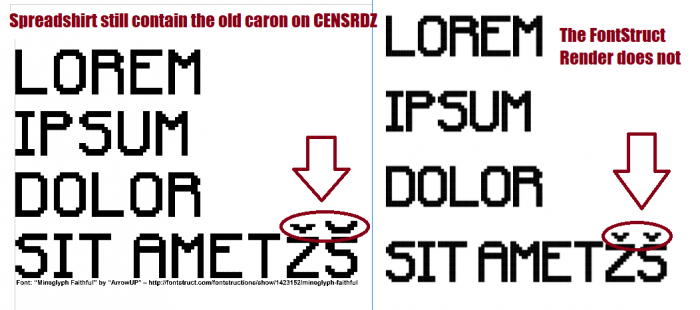
Alas, I cannot help you there, Minecraft or not. It looks quite complete to me, and quite 'pixelly' :-)
greek, other latin-A, œ, etc.
also, caron on C E N S R D look like breve.
@xXx XBox Gamer, Done. Working on Greek now.
Spacong problem on í or î
Iota has no dot on it...
@xXx XBox Gamer I have no idea why that happens. :/
Also, sorry for the dot! I pasted it there, but forgot to edit it. I thought I already did that because it was checked :v
Abreve has no breve
Î î still problems in spacing...
This might be a very useful font, well done.
I assume xbox gamer meant to give you some support like "is there a spacing problem with Îî ?" and "I think that the Iota have no dots"
@xXx XBox Gamer  As you can see it does not happen when you use this font on the computer.
Î and Ï connect to each other... if you could move the slider do that they dont touch... htat would be great
Or at least move Î 2 bricks to the left...
IPA added!
Now you can spell whatever you want with Mineglyph Faithful!
Some IPA is in Latin B...
@xXx XBox Gamer Yeah, I'm planning to add Latin-B soon
This is pretty decent, for a pixelated font. Pointers: The IPA glyphs in Latin Extended-B are deprecated, i.e., no longer used. The capital forms, of which some exist in Latin Extended-C and Extended-D, are for African languages. There are also quite a few IPA glyphs in the Phonetic Extensions, and Phonetic Extensions Supplement blocks. Concerning Coptic: lowercase Fei should resemble an open q, while lowercase Khei should mirror the uppercase form—like an h with a descender. Lowercase Chima/Shima should look more like the IPA hooked b. Lastly, uppercase Hori should have a descender, as should the lowercase, which should be set at the x-height.
P.S. If you'd like a reference to the actual form of the glyphs, you can peruse my font Dehuti on Smart Fonts. A lot of the glyphs that Unicode uses as references are of incorrect design.
@TCWhite Thank you, I fixed it. Also, I looked up your font and it looks very nice! If they changed the reference font that would be great, because it really confuses people and so it did to me.
Can you please change the circumflex on A, E, I, O, and U so it is consistent with the others in Latin A.
xXx XBox Gamer, Done, thanks :)
P.S. Concerning Latin Extended-B: the reversed Ezhes, while deprecated, such as turned o-ogonek (delta) and palatalized t, I kept, redesigning them to be how they should be. These characters are representations of (old, mind you) pharyngeal fricatives—left half ring, supercript c, et cetera. I added them as cased pairs, as the IPA is caseless. They are the counterparts to the cased glottal stops. See Dehuti. :)
You forgot a double Acute on a U in latin-A .Circumflex on latin-1 still the same...
The acute on L is too far to the right...
@XBOX Done. Thank you for pointing it out!
@TCWhite Thanks, I'm gonna keep this in mind.
î width is now too wide...
@XBOX Fixed :)
If i put î then ï, it leaves a space in between it...
Can meek fix?
Say hello to Arrows and UCASE! Now in Mineglyph Faithful :)
By the way... this font has over 1000 character now!
And now, Extended Latin B. Now available.
Hey, I noticed there's a small issue, but it literally poisons the overall impression from the font. Seems like you've left the default 'space', which is too thin (about 3 pixels as far as I remember). I suggest that you make it at least 5 pixels wide. But for that, this font is AWESOME.
Armenian!